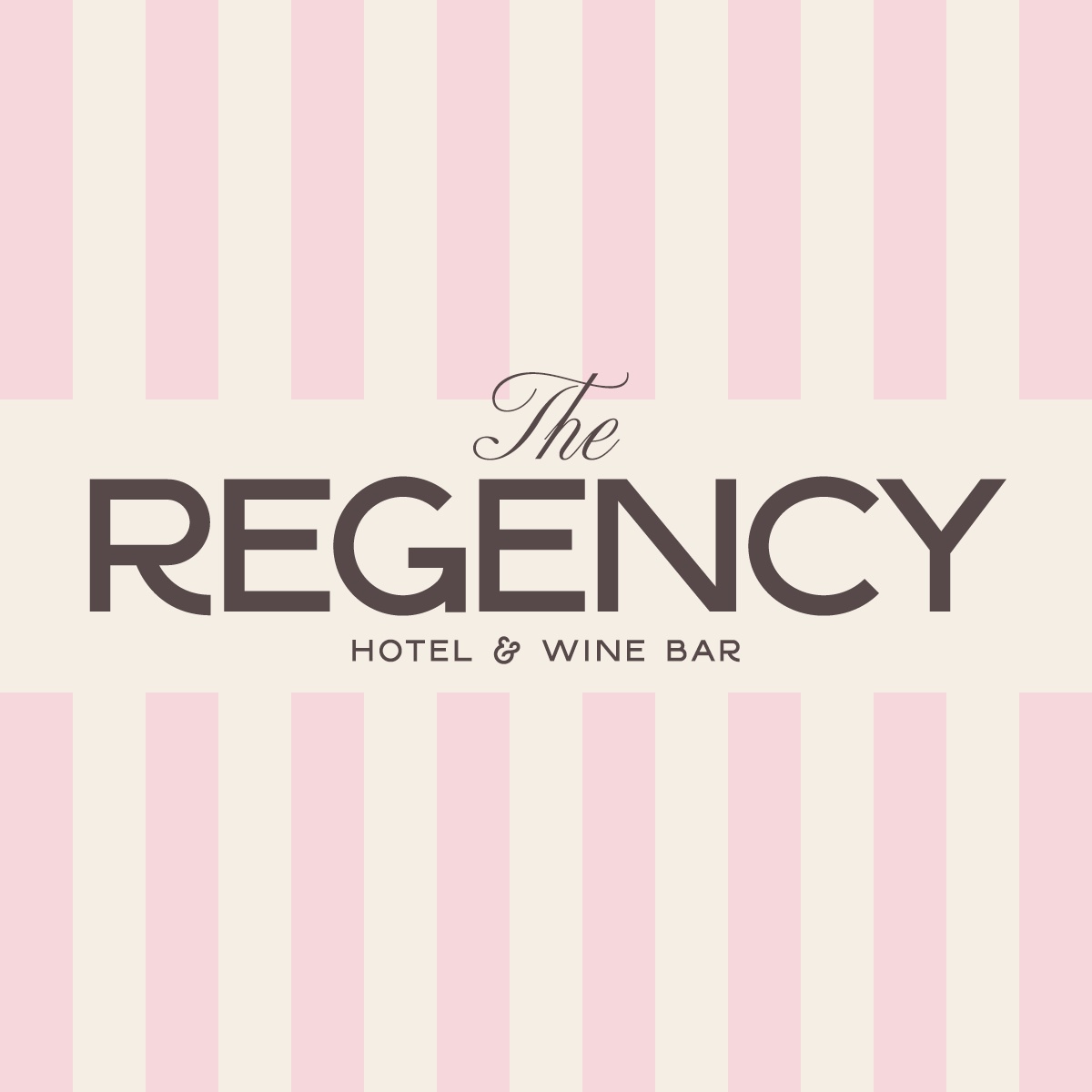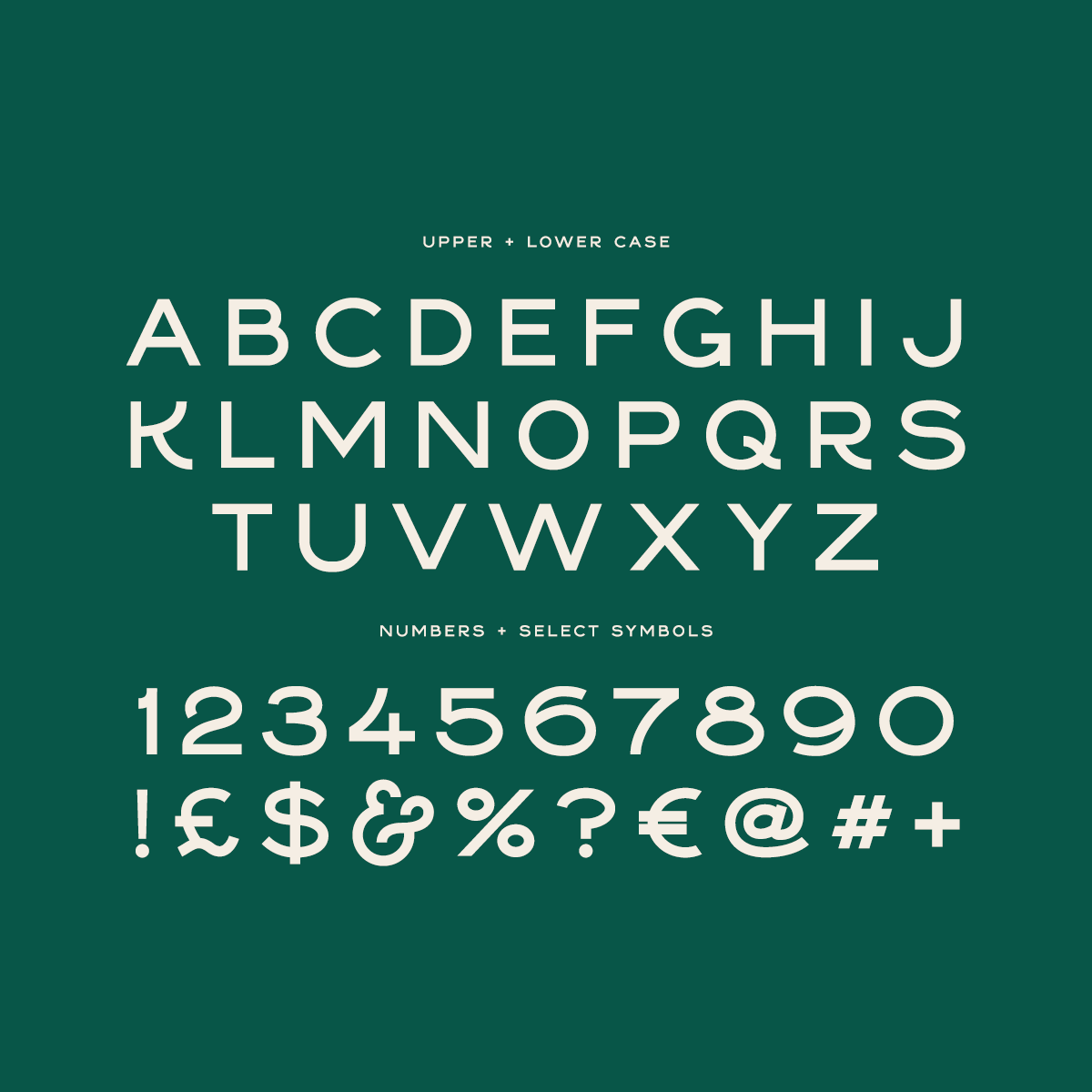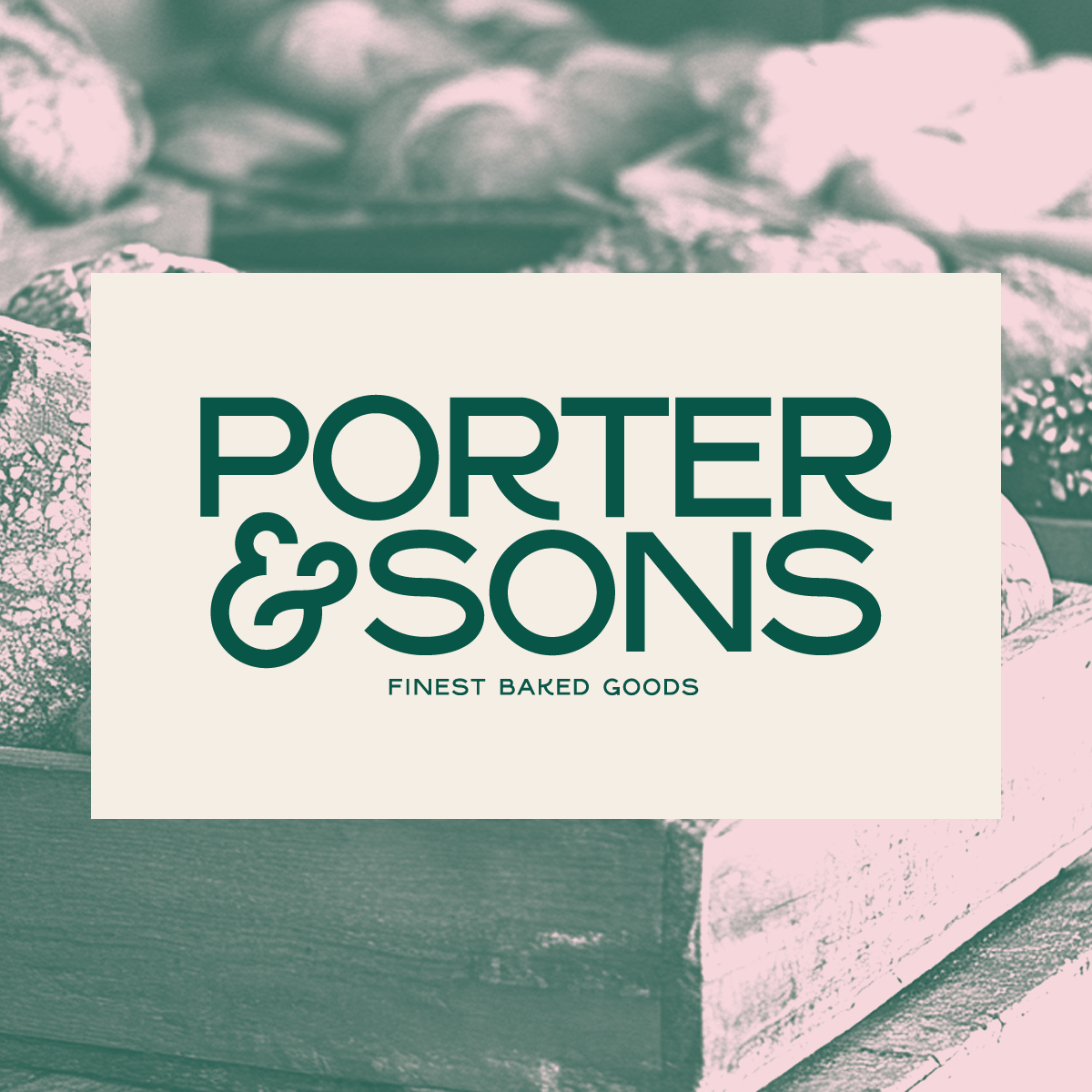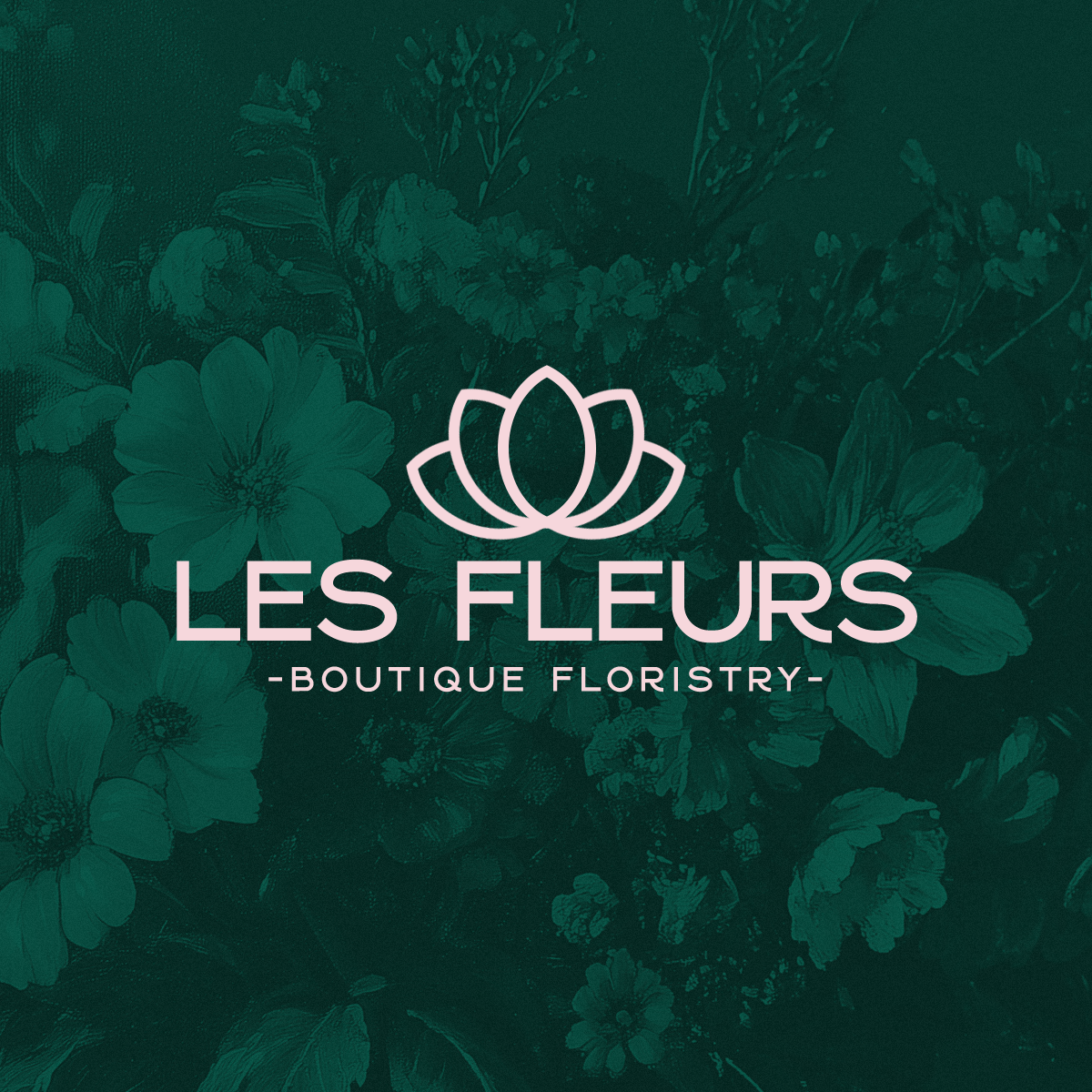
Introducing "Porter Sans" a sophisticated and classic Sans-Serif typeface!
With 2 weights this font is extremely versatile. Inspired by retro lettering from the Art Deco period this font has a timeless feel to it and is perfect for branding, print, packaging, websites, merchandise and much much more!
Porter Sans is primarily a display typeface and comes in both regular weight and bold weight and features a tonne of numbers and symbols.
Full Uppercase Alphabet
2 Weights (Regular and Bold)
Numbers and essential symbols